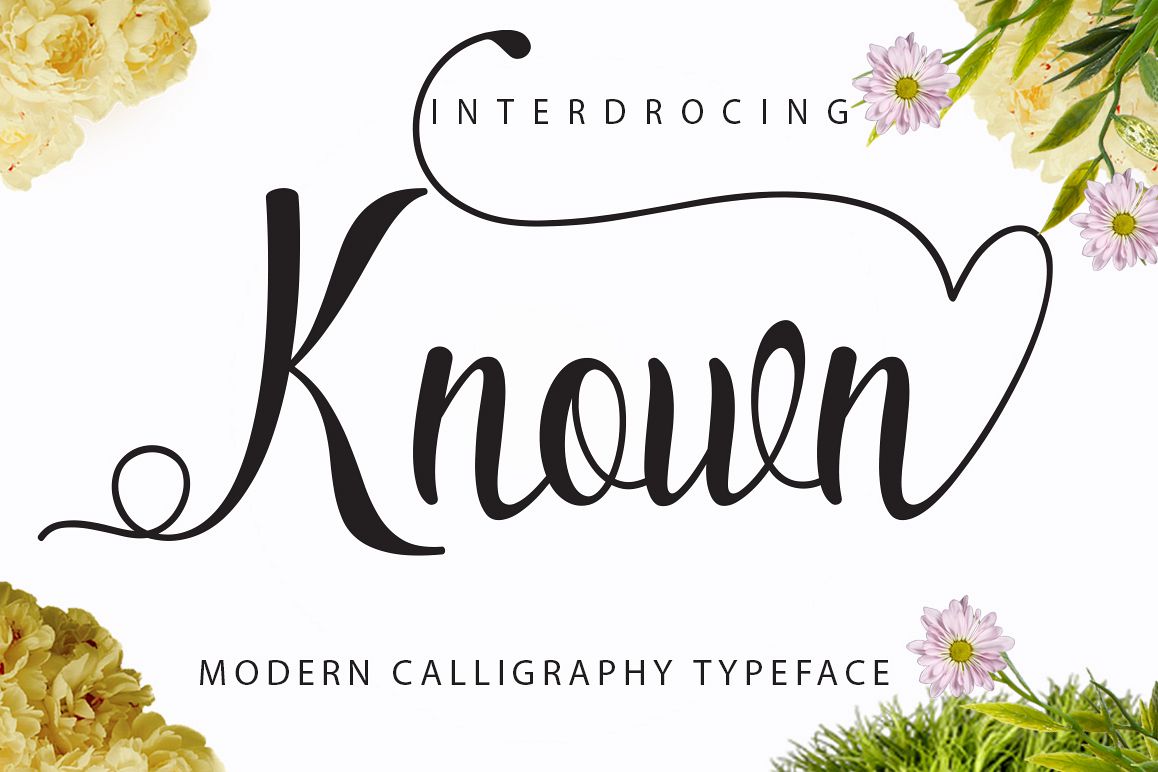
Known
Known Modern Calligraphy. This font was designed by handwriting, and it has a modern and unique forms of calligraphy, the writing style is very natural.
The Features of this fonts is;
* Standart ligatures
* Stylistic Alternates
* Contextual Alternates
* Stylistic sets